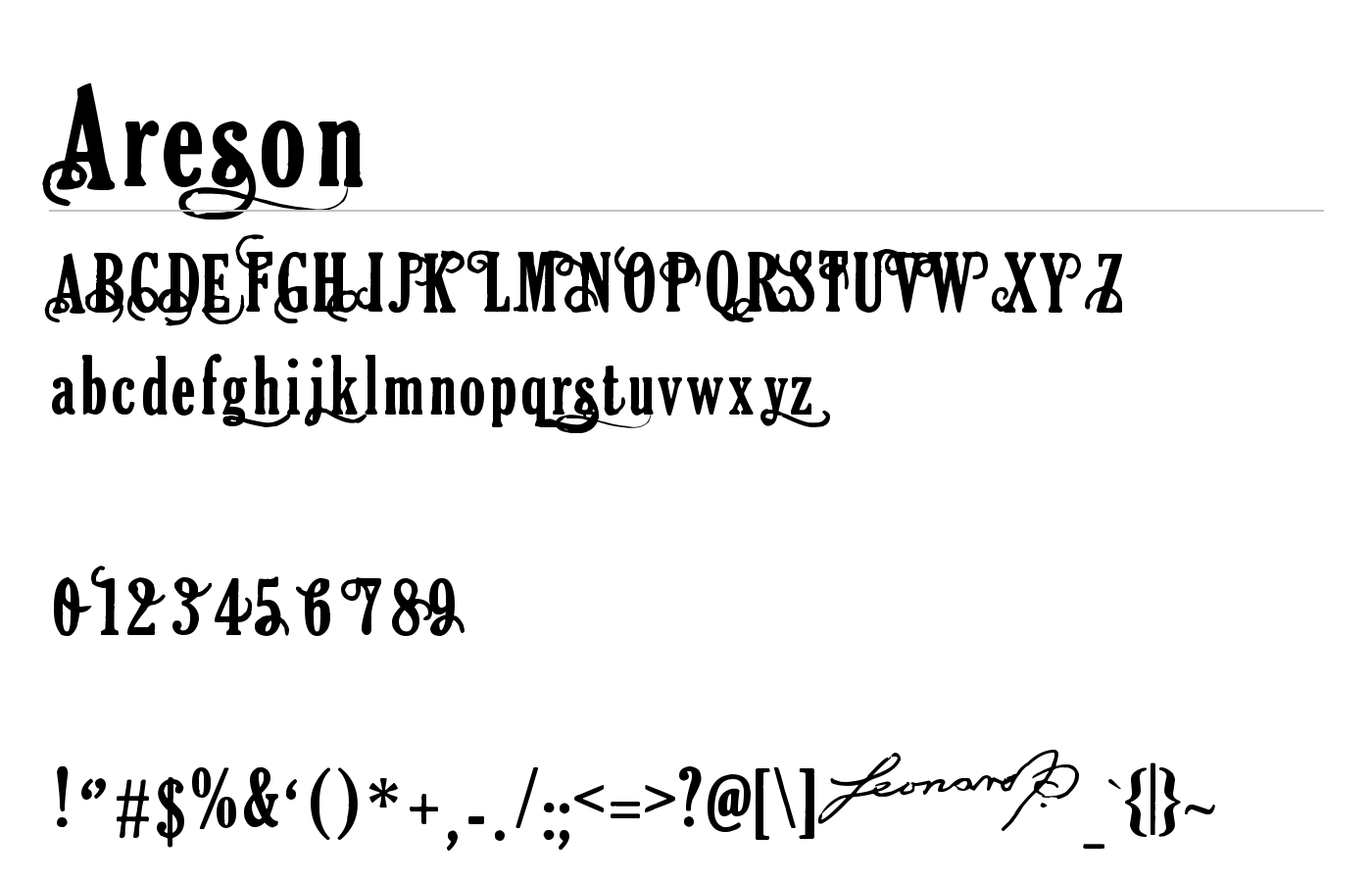
Areson is a decorative serif font with a vintage charm, featuring bold strokes and ornate swashes that give it a distinctive, artistic flair. Its high contrast and playful flourishes make it well-suited for creative headlines, logos, and projects seeking an elegant yet whimsical touch. This font shines in designs that want to evoke a sense of character, tradition, and handcrafted style.
Areson Font
About Areson Font